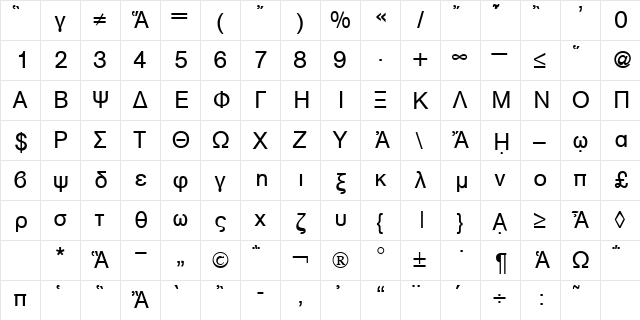
AkzentGreek Regular
Design Context for AkzentGreek Typeface
AkzentGreek is a composed and adaptable typeface that performs quietly and consistently across a wide range of design contexts.